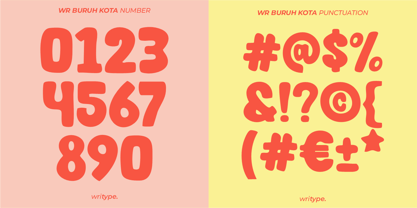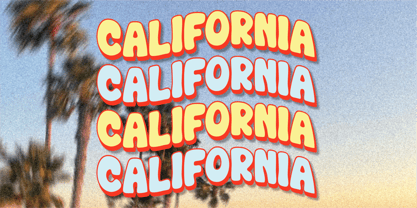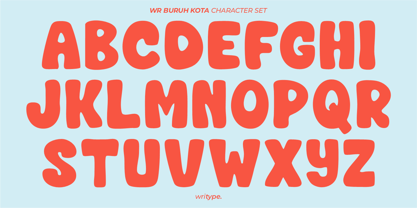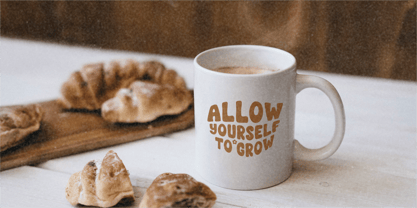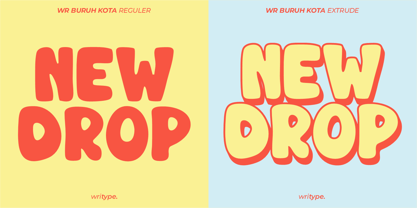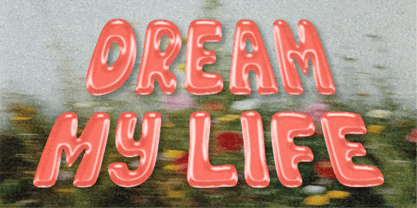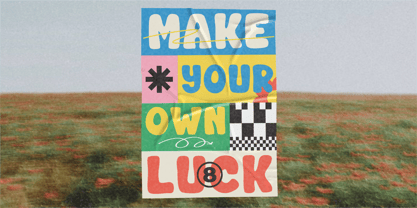
WR Buruh Kota
by WriType
The WR Buruh Kota Font Family was designed by Wira Pras and published by WriType. WR Buruh Kota contains 2 styles and family package options. More about this family
WR Buruh Kota - Retro Funky Font
WR Buruh Kota is a bold display font inspired by urban grit and industrial strength. Available in two styles—Regular and Extrude—it offers versatility for dynamic designs. Perfect for posters, branding, packaging, and statement pieces that demand attention.
Designers: Wira Pras
Foundry: WriType
We are Writype, a team of three designers from Kebumen, Indonesia, specializing in display fonts. Founded in mid-2024, our focus is on creating unique and bold typography that stands out in design projects. Starting from our dismay with the many common fonts out there, we aim to break away from the norm and offer something fresh and impactful. Through Writype, we strive to create fonts that are both functional and visually appealing, bringing new energy to the world of typography.